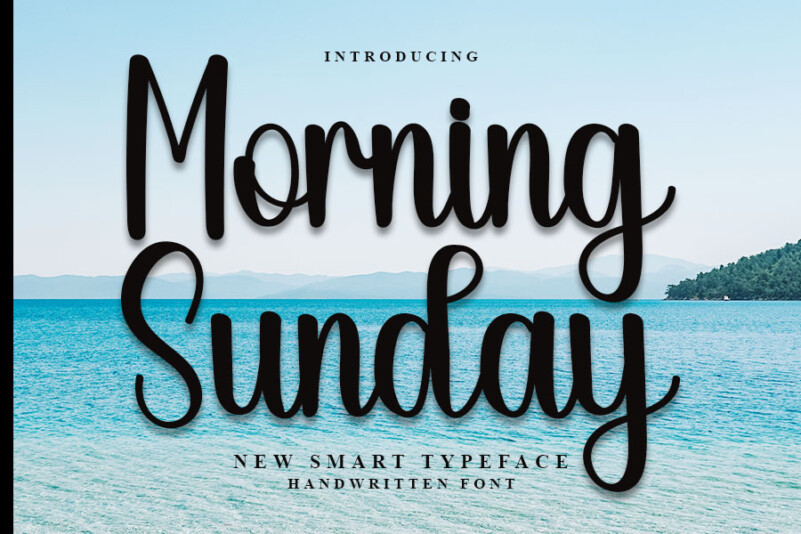
Morning Sunday Font
Morning Sunday Font is an elegant and bold display font, carefully handcrafted to become a true favorite. This font will look outstanding in any context, whether it’s being used on busy backgrounds or as a standalone headline!